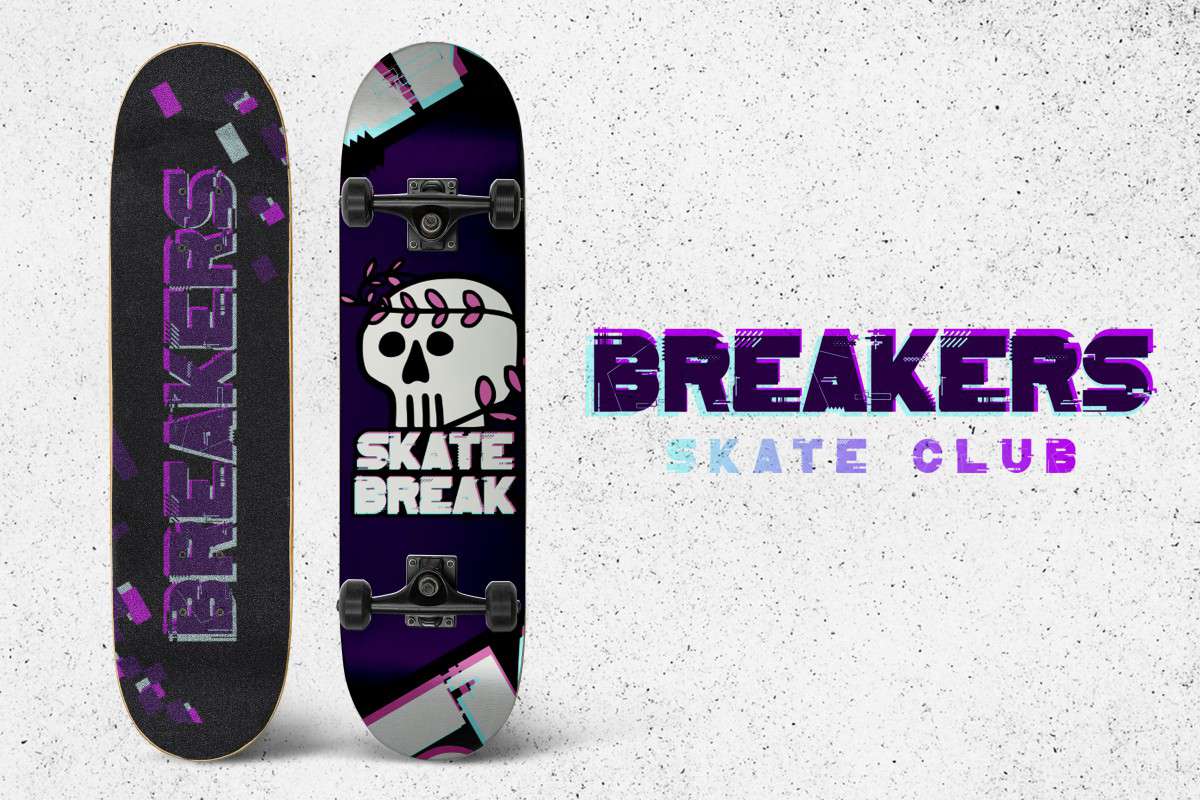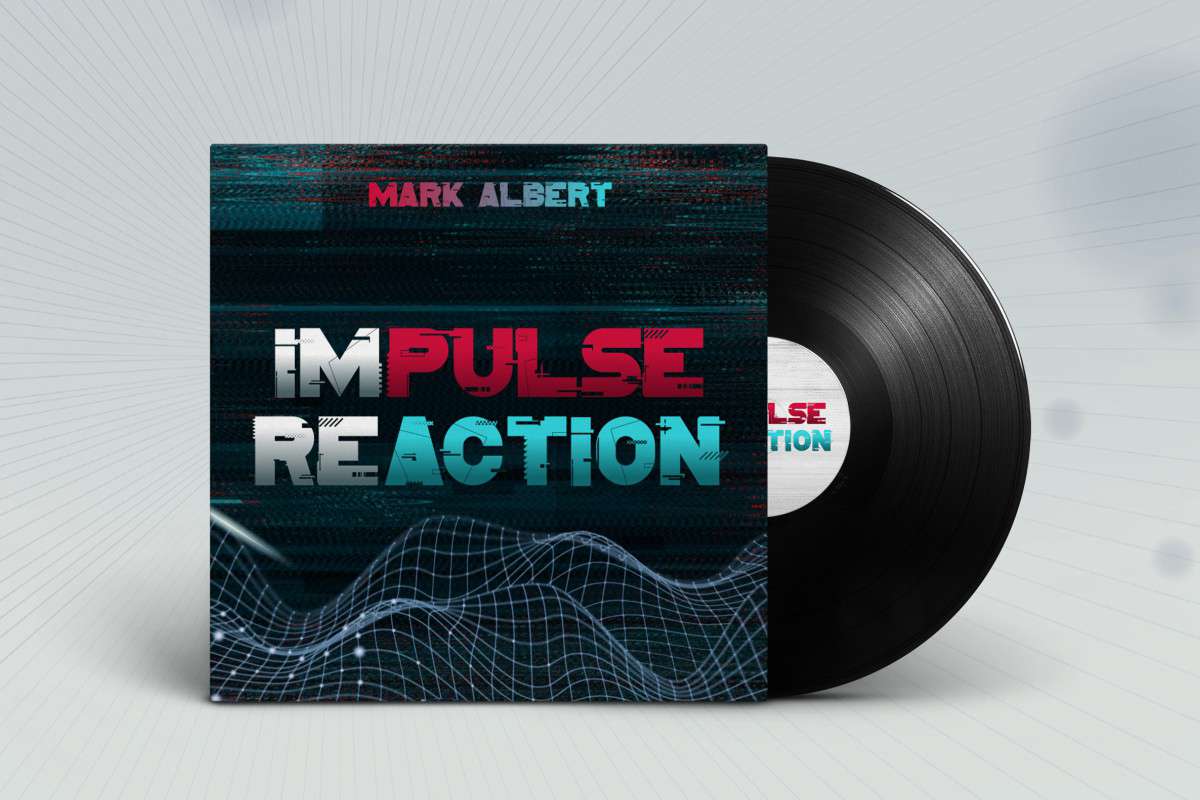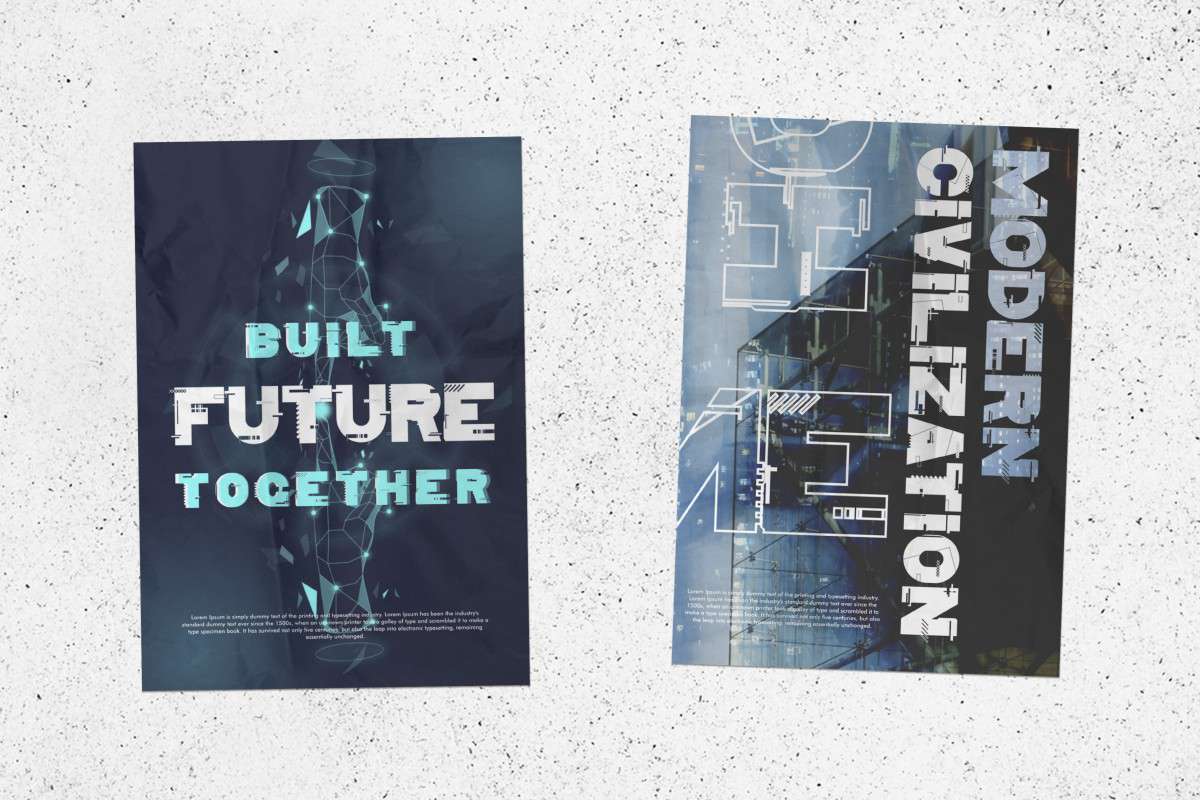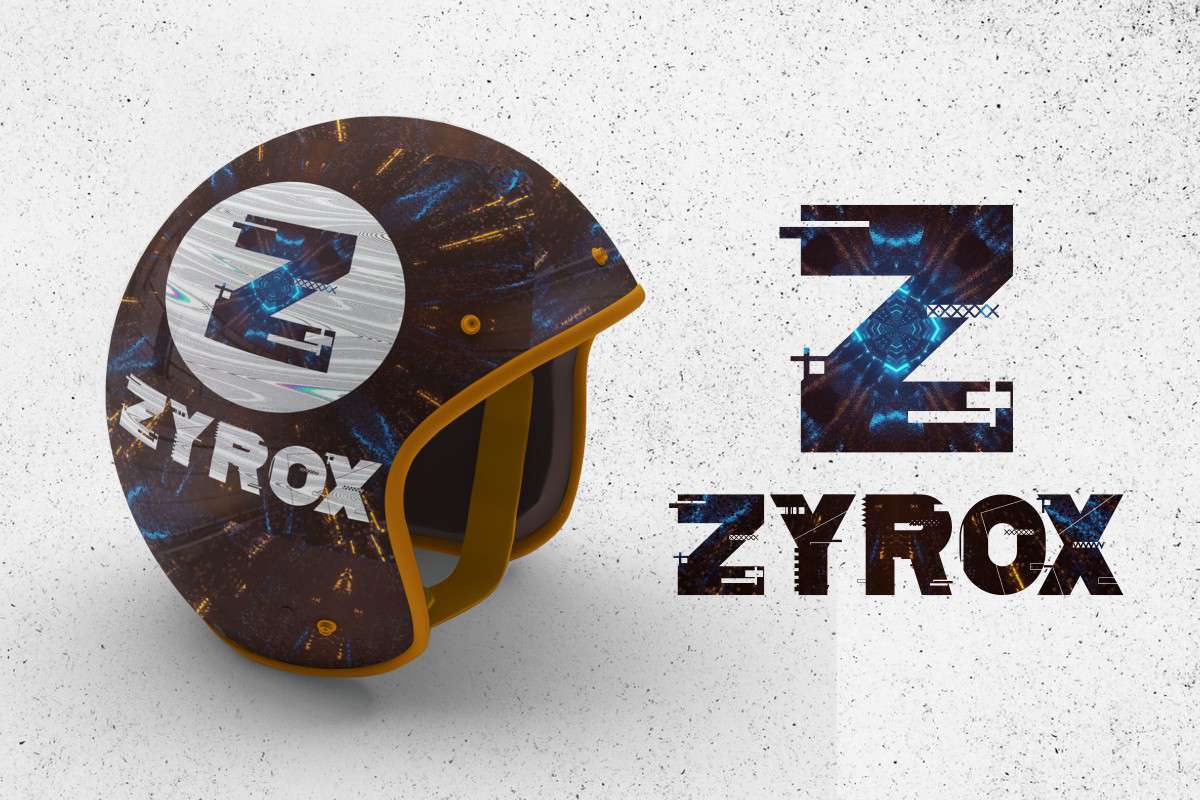
Distorter Font
Distorter Font is a distorted display font. This font takes on the effect of distorted letters for a modern look. The font has a bold, modern dan techno style with a distorted look that will bring an exclusive font to the design. It will also work for businesses or companies such as, fashion, food and drink, games, music, poster, racing, retails, signage etc.
It includes full set of Uppercase Basic Characters, Numerals and Punctuation. The font is perfect for many projects, branding logos, product packaging, posters, signage, social media post, titles, webpage and many more!